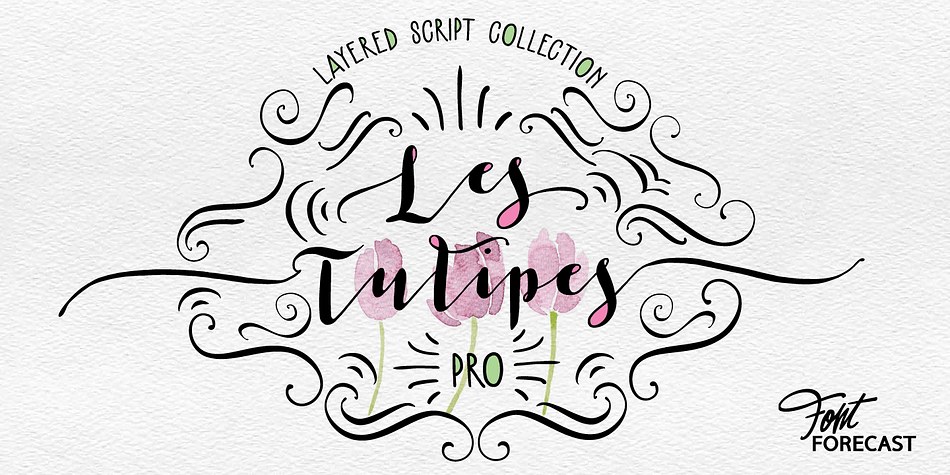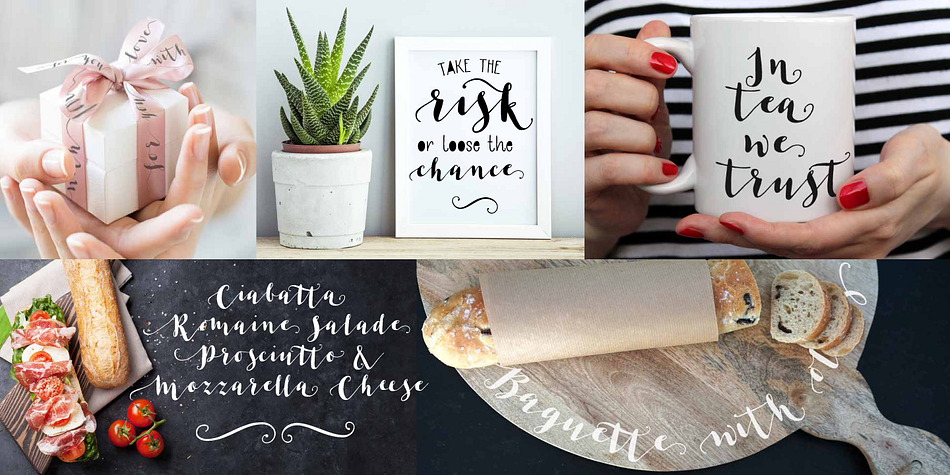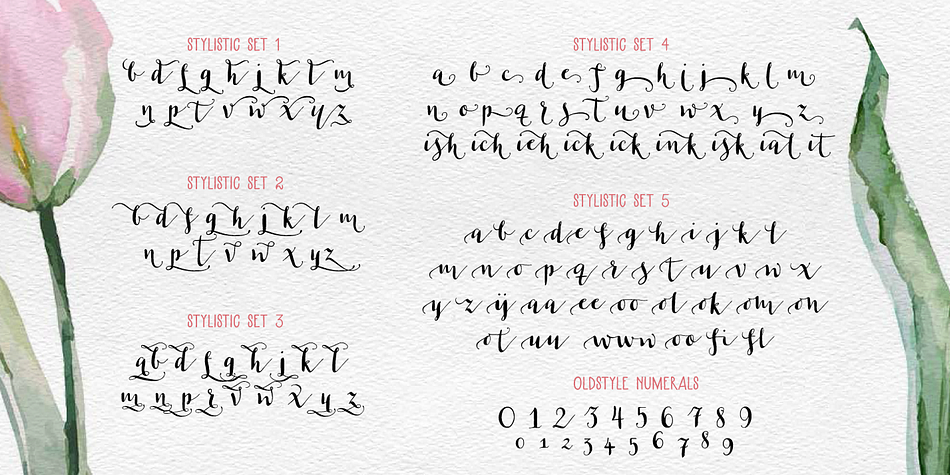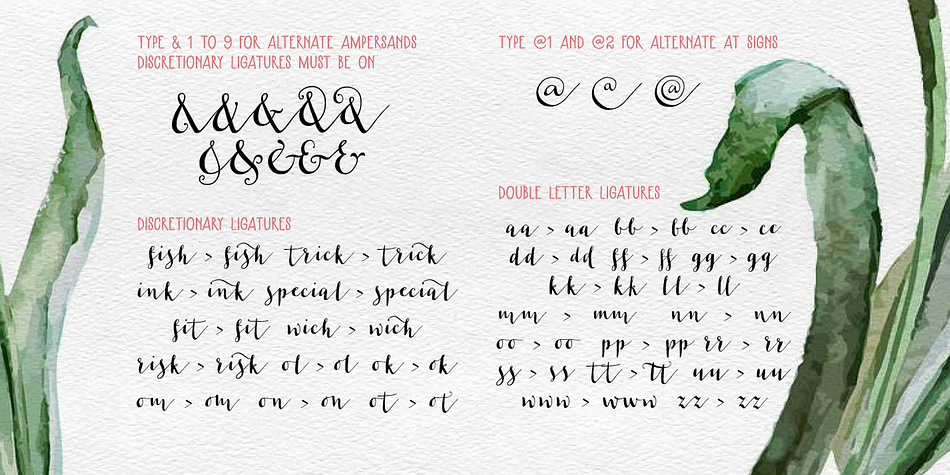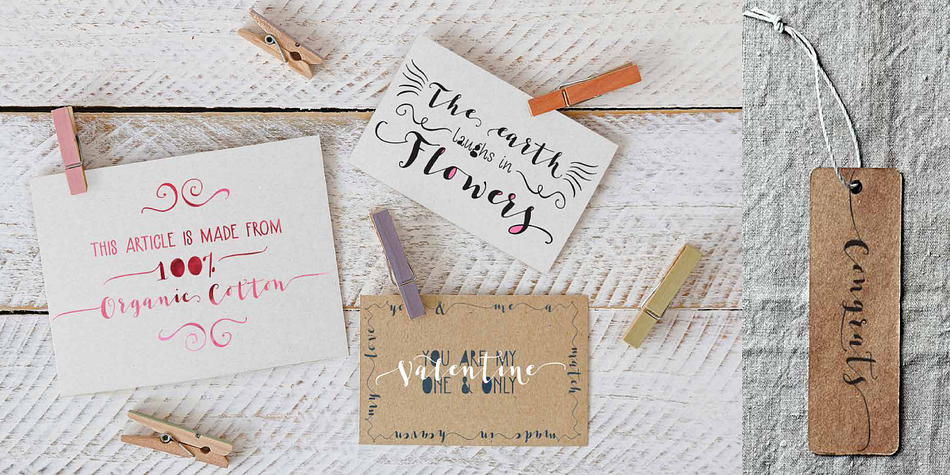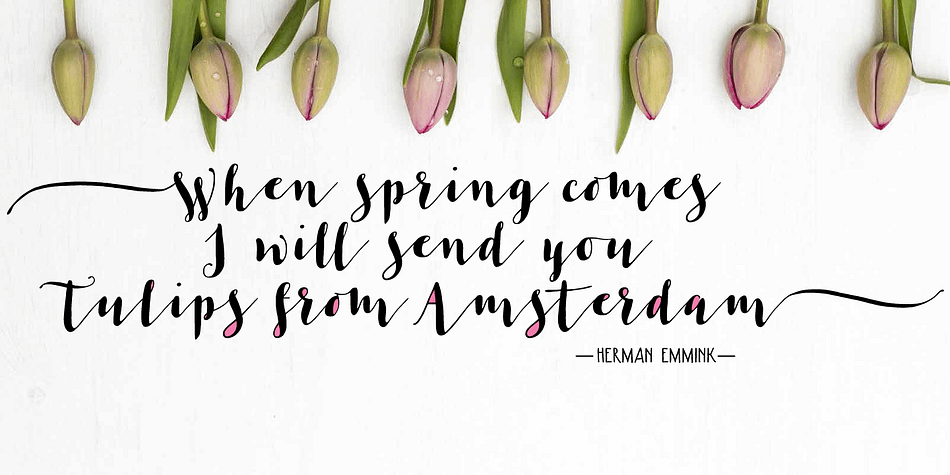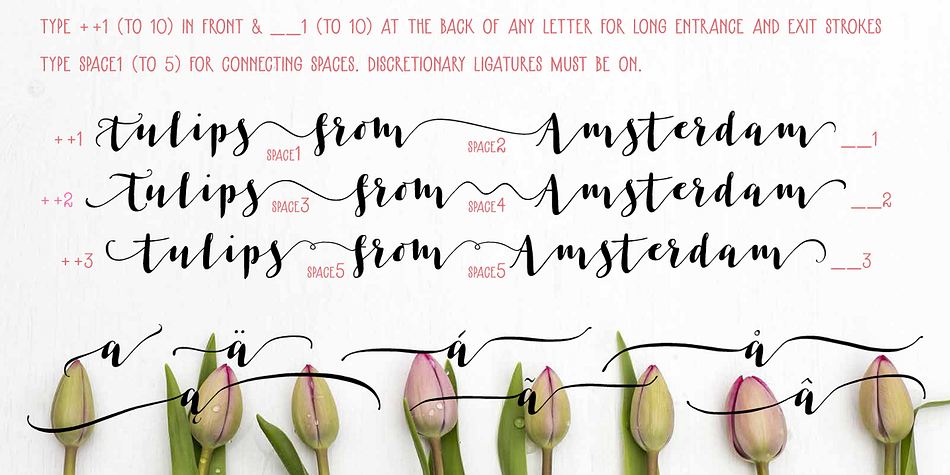
Designed by Hanneke Classen, Les Tulipes Pro is a dingbat, hand drawn and modern calligraphy font family. This typeface has thirteen styles and was published by Fontforecast.
We present Les Tulipes Pro. A smart, classy, modern calligraphy layered type system that offers an array of versatility. Les Tulipes Pro is hand drawn with dip pen and ink, with great attention for details.
To name a few:
- Elongated entrance and exit strokes ( type ++1 to ++10 in front and __1 to __10 at the back of any letter)
- 5 different connecting spaces that make it appear as if the pen was never lifted from the paper (type space1 to space5 wherever you want the connecting spaces to appear)
- 9 alternate ampersands (type &1 to &9)
- 2 alternate at signs (type @1 or @2)
- 5 stylistic sets for alternate characters
Note: Discretionary ligatures must be ON
The various designs of Les Tulipes Pro harmonize beautifully. Les Tulipes Pro Sans was designed to complement and support the other styles. The more straight forward appearance of the Sans styles enable you to balance out your designs perfectly.
The Bold and Closed versions offer even more possibilities to combine or highlight words and phrases.
On top of that Les Tulipes Pro Extra, with its 85 gorgeous swirls and swashes tempts you to further embellish your design.